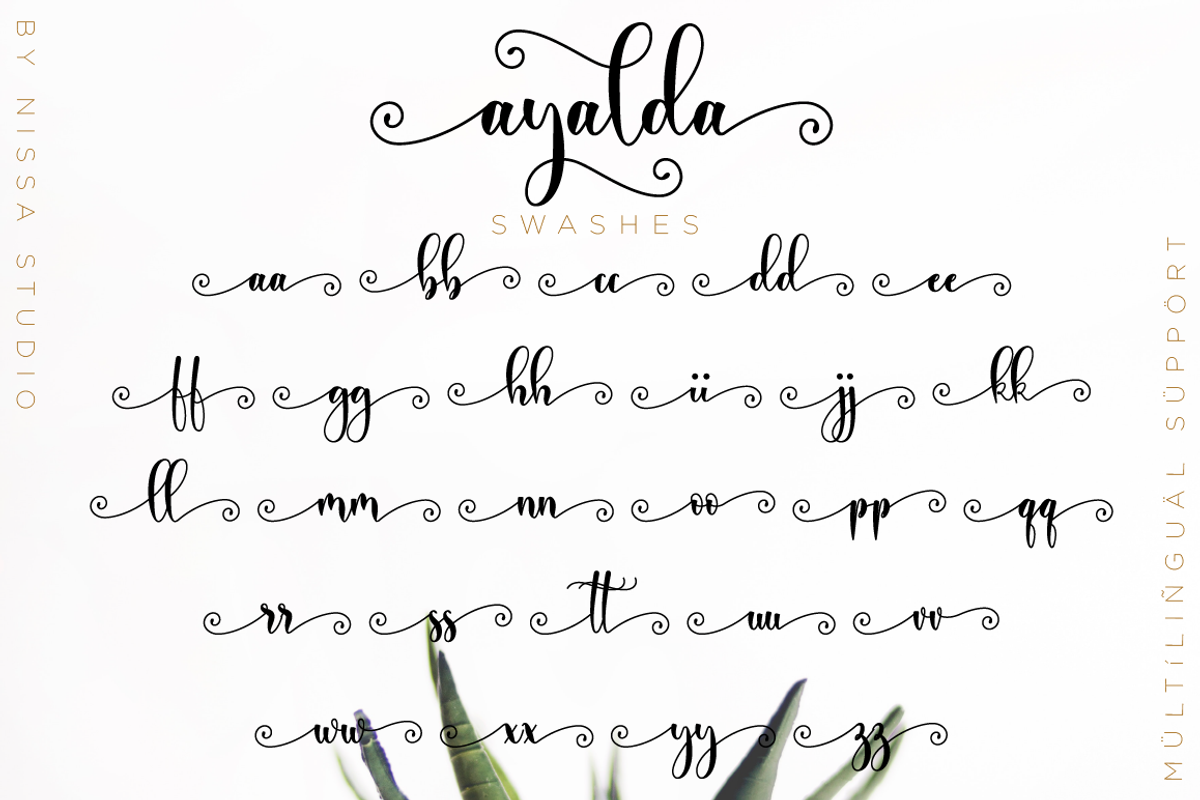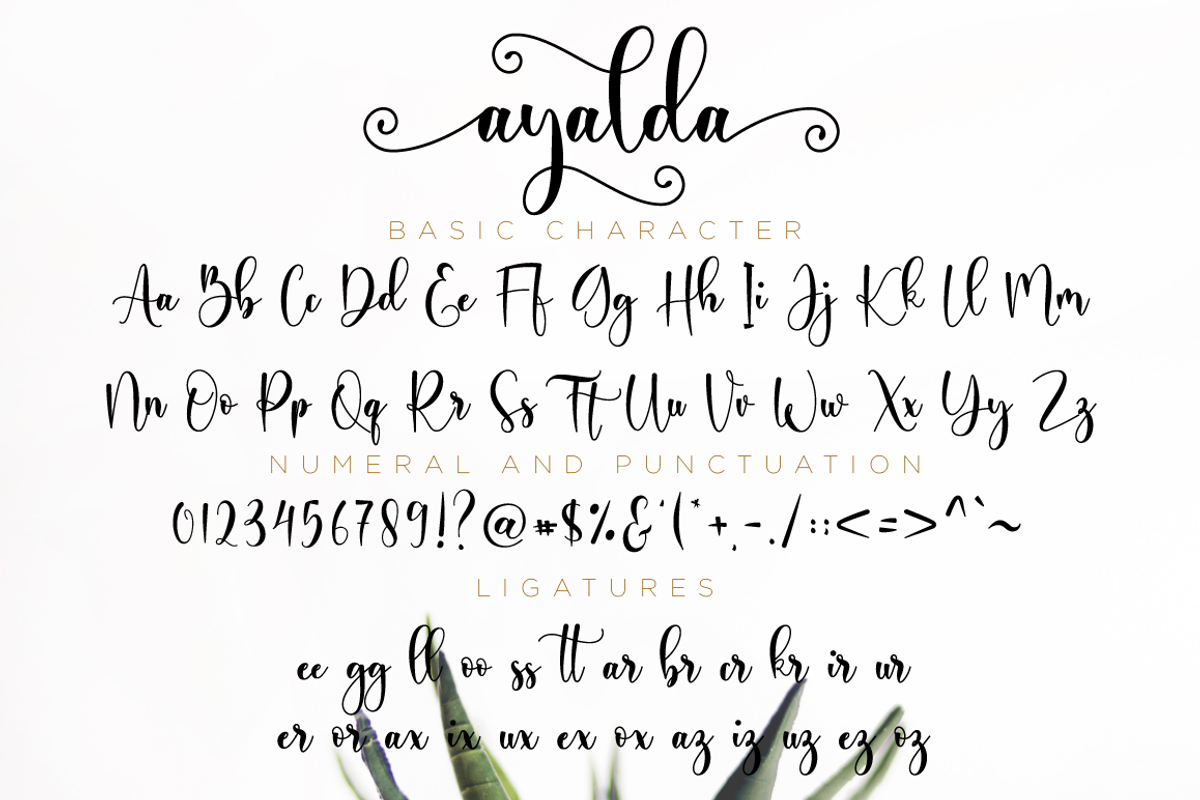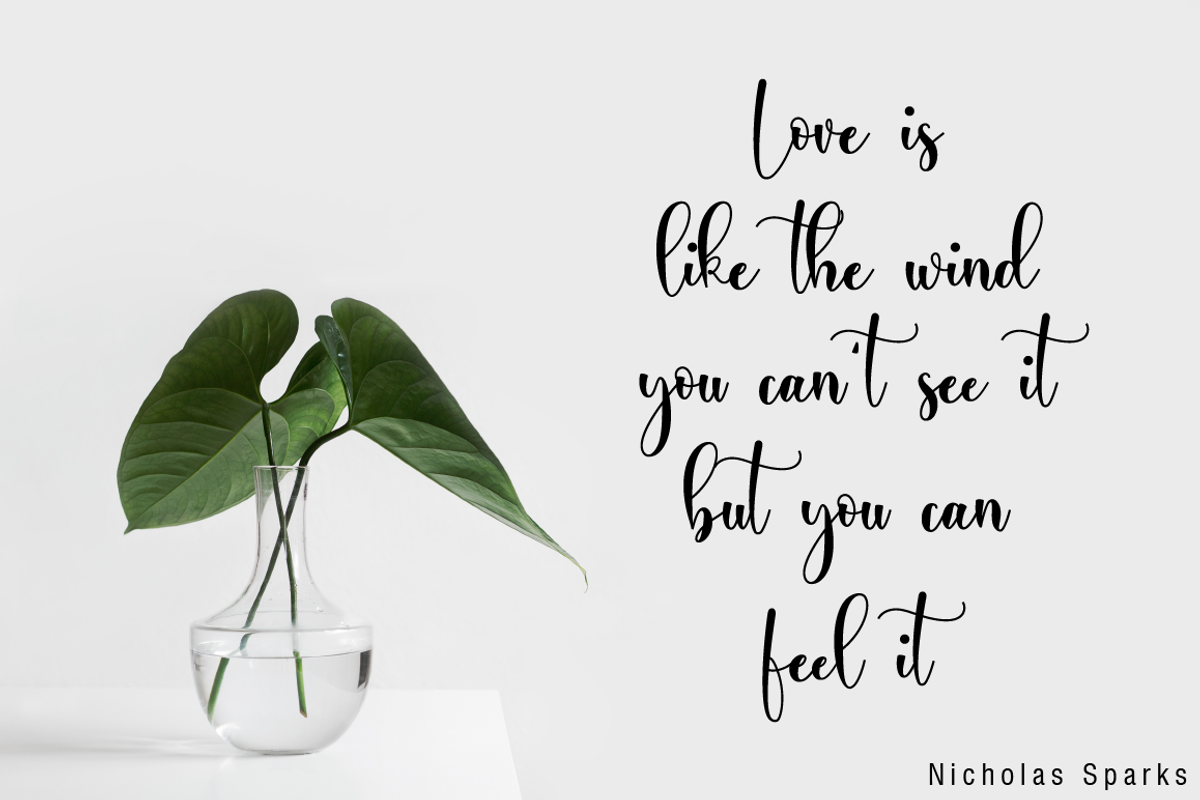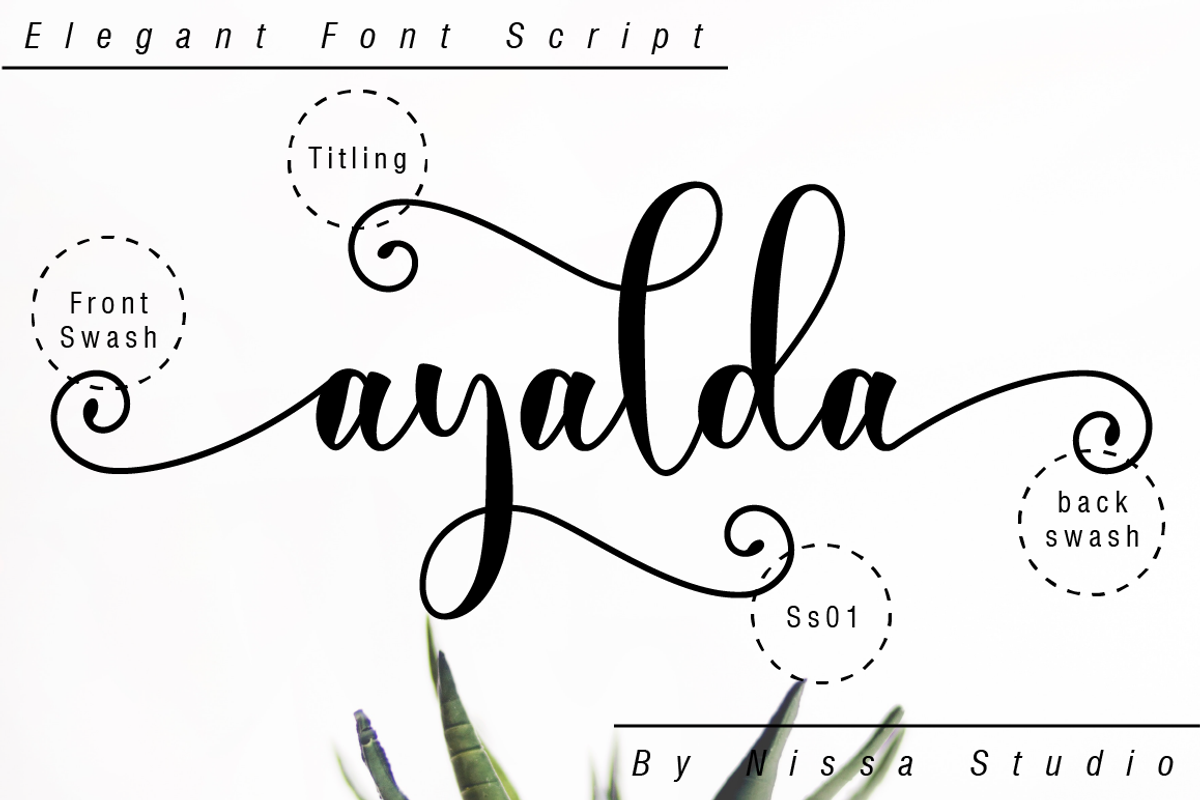
Ayalda Script
Ayalda is a classy and elegant handwritten font with beautiful swashes. Get inspired by its unique look, and turn any design idea into a true standout!
Each Font Has:
- Modern Handwritten Font
- Beautiful Swash (Ending tail)
- Beautiful Titling (Beginning tail)
- Special Ligatures